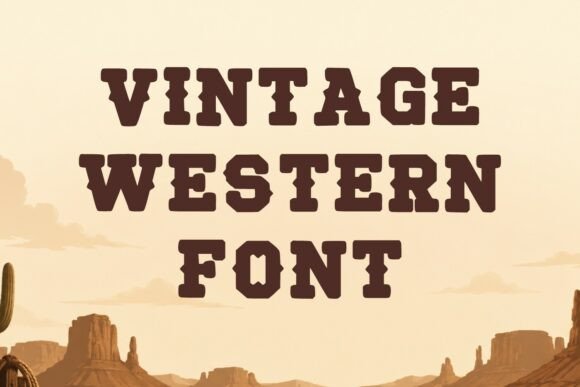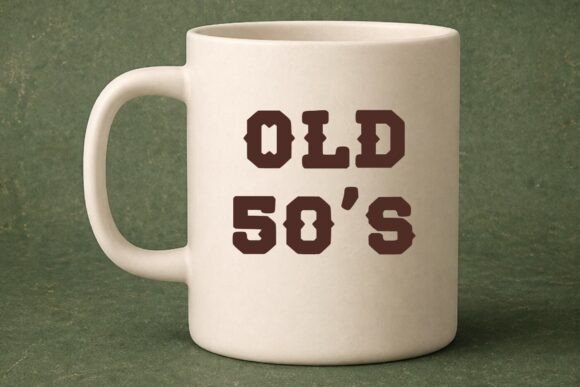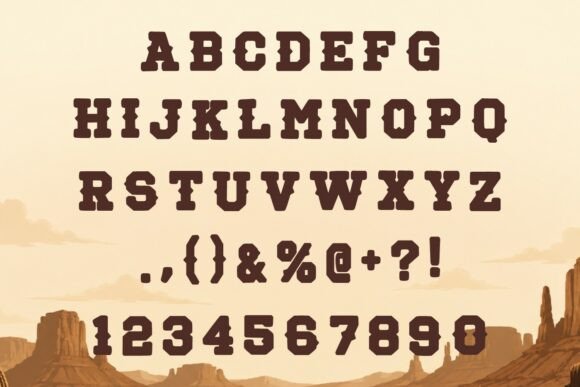
Cowboy Up with the Perfect Western Typography
Imagine strolling into a dusty old saloon, the sun setting over the desert horizon, and the sound of a lone cowboy’s lasso swinging in the air. You’re surrounded by the authentic charm of the Wild West, and the typography is just as rugged and charming as the landscape. That’s exactly what you get with Cowboy Font, a bold and authentic western display typeface that captures the essence of classic Wild West typography and vintage saloon signs.
Designed with strong slab-style letterforms and iconic western character details, Cowboy Font delivers a timeless frontier look that instantly brings retro western vibes into any creative project. Whether you’re a designer looking to add a touch of rustic charm to your branding, logos, or packaging, or a marketer seeking to create eye-catching social media graphics and merchandise, this font is a valuable addition to your toolkit.
Cowboy Font Key Features
- Font Style: The Cowboy Font is a western-style serif font, characterized by its rustic and vintage feel.
- Unique Characteristics: Distinctive features include its irregular letterforms, ornate flourishes, and vintage-inspired details.
- Font Family: The Cowboy Font is part of a larger font family that includes various weights, from Light to Bold, to accommodate different design needs.
- Legibility: Despite its ornate design, the Cowboy Font remains highly legible, making it suitable for a wide range of applications, including body text and signage.
Cowboy Font Review
I recently had the chance to work with the Cowboy Font, and I must say it’s a wild ride. Here’s my honest take on this font.
- The Cowboy Font is perfect for projects that need a touch of the Wild West. Its rugged aesthetic adds a nice layer of depth to any design.
- The font is highly customizable, with a wide range of weights and styles to choose from. This makes it easy to find the perfect fit for your project.
- The Cowboy Font is also highly legible, even at smaller font sizes. This makes it a great choice for body text or headings.
- The Cowboy Font can feel a bit over-the-top for more formal projects. Its bold, rugged aesthetic may not be the best fit for corporate or professional designs.
- The font may not be as versatile as some other options, as its style is quite specific to the Western theme.
Overall, I think the Cowboy Font is a great choice for designers who want to add a touch of rugged individualism to their projects. While it may not be the best fit for every design, it’s definitely worth considering for projects that need a bit of cowboy flair.
The Cowboy Font is ideal for creating rustic, country-inspired designs. Common use cases include:
- Western-themed posters and flyers.
- Rustic wedding invitations and decorations.
- Outdoor and adventure-themed branding and marketing materials.
Remember to pair the Cowboy Font with complementary design elements, such as distressed textures and earthy colors, to create a cohesive and visually appealing design.